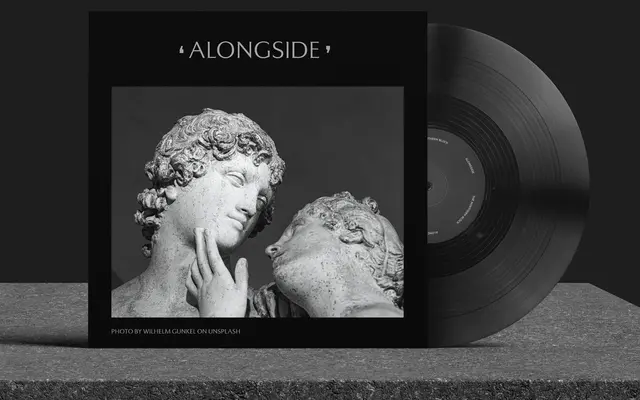
A high-contrast display serif reviving the inscribed forms of Markus Low's 1965 Basilea, updated across eight weights with obliques and extensive OpenType support.
Rooted in the classical romanesque letterforms of Basilea, originally drawn by Markus Low in 1965, this revival steers the design toward a contemporary register without losing the chisel-like tension of its source material. Eight weights run from Thin to Ultra, each paired with a matching oblique, giving the family range across headline and display settings. OpenType features include small caps, ten numeral variants, 14 alternates, and coverage of Western, Southern and Central European Latin.
Based on Basilea (1965), the design draws on classical romanesque inscribed letterforms with high stroke contrast and chisel-like details, positioning it as a contemporary display serif with historical roots.